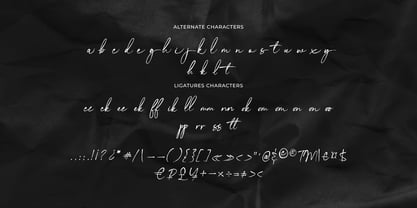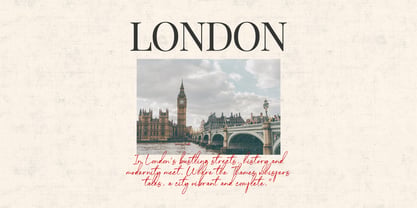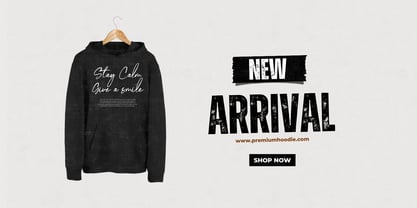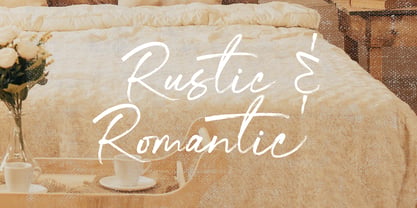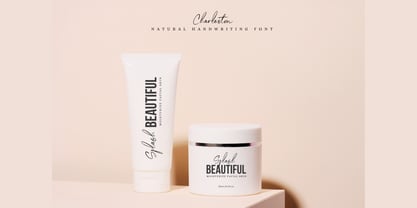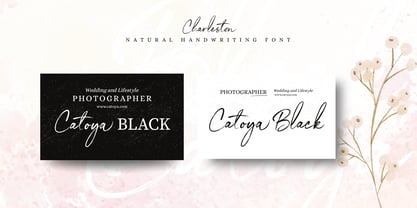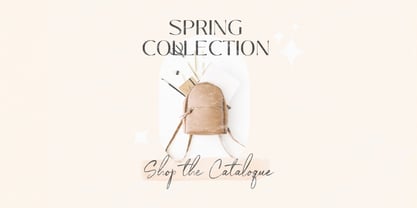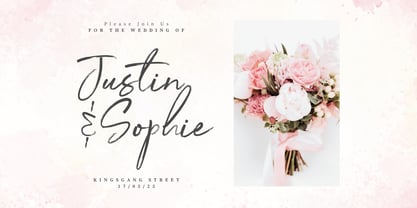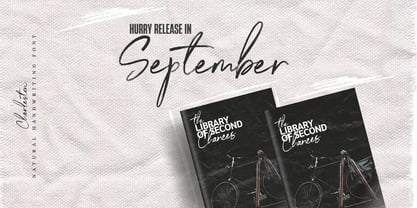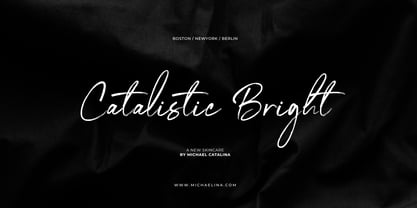
Charleston
Say Hello to Charleston
A Handwritten Script with Elegant Tails & Irresistible Flow
Looking for a handwriting font that brings personality and elegance in every stroke?
Charleston is a beautifully handcrafted script font filled with graceful swashes, stylish lowercase alternates, and just the right touch of flair.
This font was made for creatives who want their designs to feel personal, romantic, and effortlessly stylish. Whether you're working on:
Wedding invitations, Feminine branding &packaging, Social media, quotes, Boutique logos, Journals, cards, or crafts
Charleston adds that soft, flowing vibe that feels like it was written just for you.
What’s inside?
A smooth, handwritten script font
packed with tons of lowercase alternates & long swashes
Every letter was drawn with love, allowing you to customize and create your unique look with ease. From long swirly tails to short chic curls, Charleston gives you creative freedom in every line